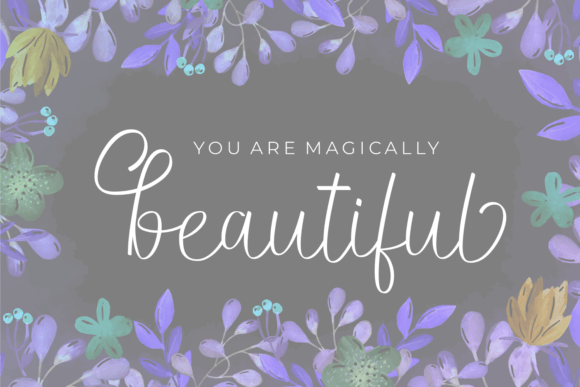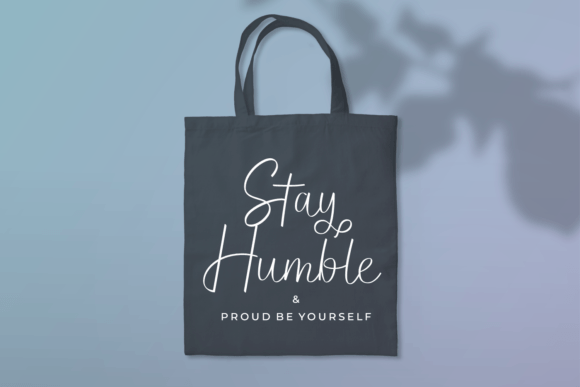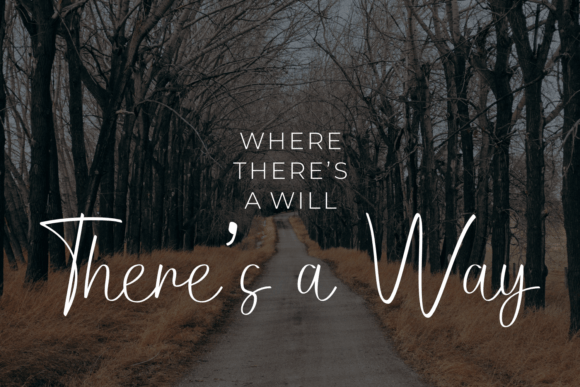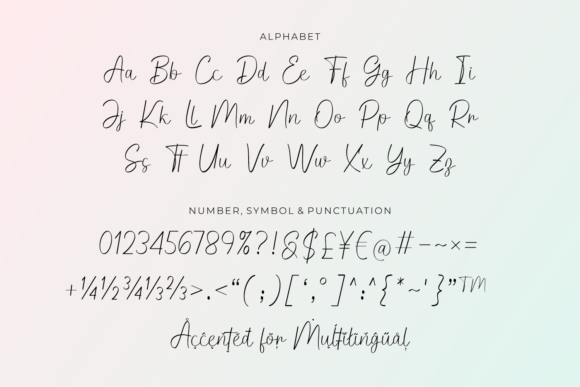
Fantasy Style Font: Elevate Your Designs with Elegance and Romance
Are you a designer or crafter looking for a font that can add a touch of elegance and romance to your creations? Look no further than the Fantasy Style Font. This beautiful script font is designed to bring a sense of sophistication and whimsy to your designs, making it perfect for a wide range of projects.
What is Fantasy Style Font?
Fantasy Style Font is a graceful and elegant script font that features beautiful elongated swashes. These swashes add a romantic note to each of your creations, making it perfect for designs that require a touch of whimsy and sophistication. The font is highly versatile and can be used for a variety of projects, including logos, invitations, quotes, wedding designs, and many more.
Key Features of Fantasy Style Font
• Elegant Script Font: Fantasy Style Font is a beautifully designed script font that features elegant and flowing lines.
• Elongated Swashes: The font features beautiful elongated swashes that add a romantic note to your designs.
• Highly Versatile: The font can be used for a wide range of projects, including logos, invitations, quotes, wedding designs, and many more.
Uses of Fantasy Style Font
Fantasy Style Font is a highly versatile font that can be used for a wide range of projects. Here are some of the most popular uses of the font:
• Logos: The font can be used to create elegant and sophisticated logos for businesses and brands.
• Invitations: The font is perfect for creating beautiful and elegant invitations for weddings, parties, and other events.
• Quotes: The font can be used to create inspirational and motivational quotes that are perfect for social media and other platforms.
• Wedding Designs: The font is perfect for creating beautiful and elegant wedding designs, including wedding invitations, programs, and more.
• Crafting: The font can be used for a variety of crafting projects, including card making, scrapbooking, and more.
Benefits of Using Fantasy Style Font
There are many benefits to using Fantasy Style Font in your designs. Here are some of the most significant advantages:
• Elegance and Sophistication: The font adds a touch of elegance and sophistication to your designs, making them perfect for high-end projects.
• Romantic and Whimsical: The font’s elongated swashes add a romantic and whimsical touch to your designs, making them perfect for projects that require a touch of personality.
• Highly Versatile: The font can be used for a wide range of projects, making it a great addition to any designer’s font library.
Tips for Using Fantasy Style Font
Here are some tips for using Fantasy Style Font in your designs:
• Use it for Headlines: The font is perfect for headlines and titles, where its elegance and sophistication can really shine.
• Pair it with Other Fonts: The font can be paired with other fonts to create a unique and interesting look.
• Experiment with Swashes: The font’s elongated swashes can be used to add a touch of personality to your designs.
• Use it for Digital and Print Projects: The font can be used for both digital and print projects, making it a great addition to any designer’s font library.
In conclusion, Fantasy Style Font is a beautiful and elegant script font that can add a touch of sophistication and romance to your designs. Its highly versatile and easy to use, making it perfect for a wide range of projects. Whether you’re a designer or crafter, this font is sure to become a favorite in your font library.